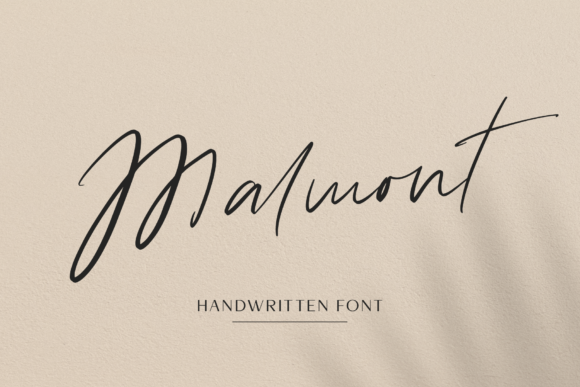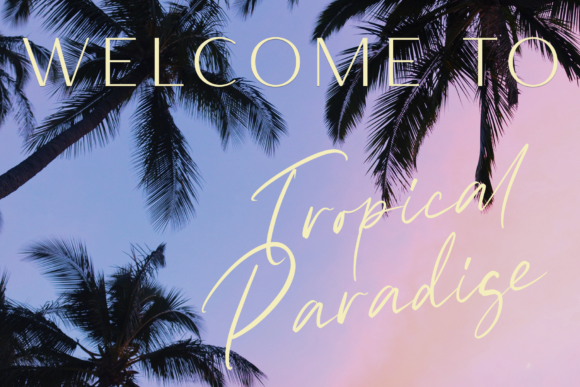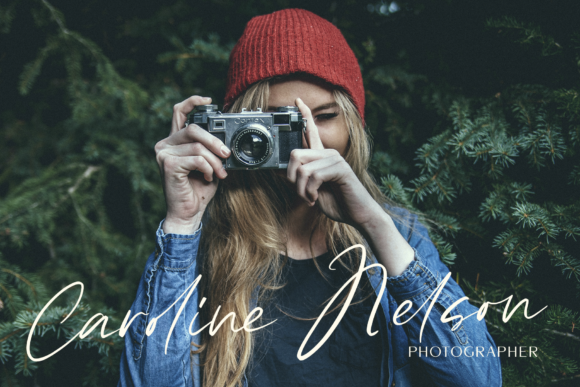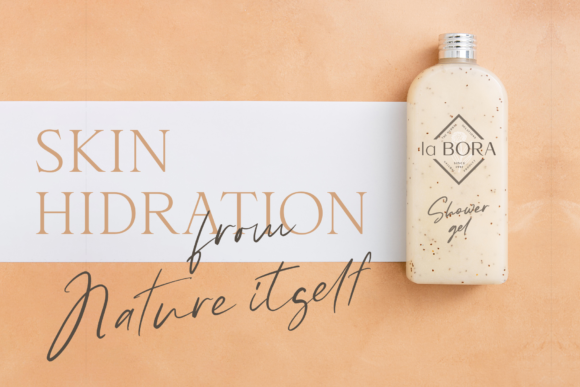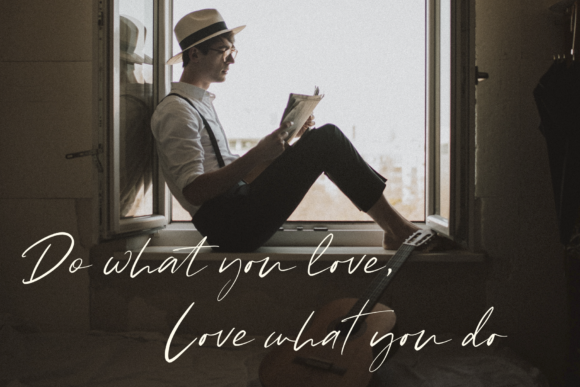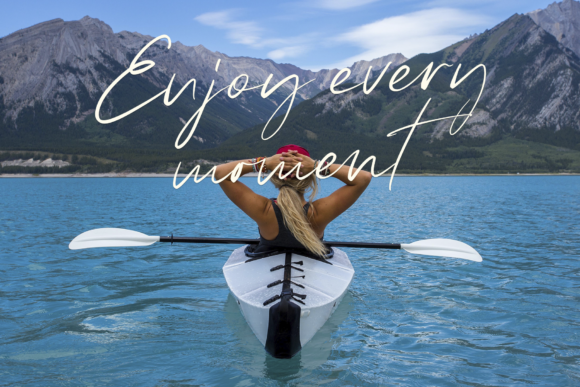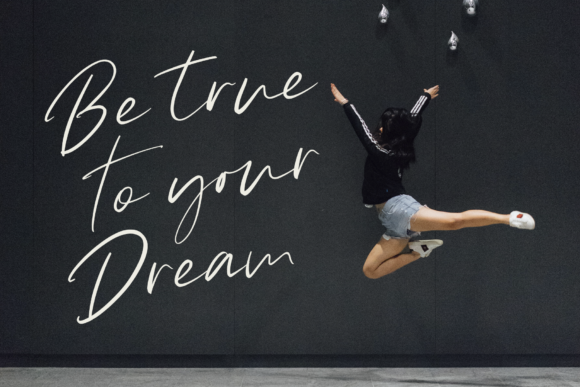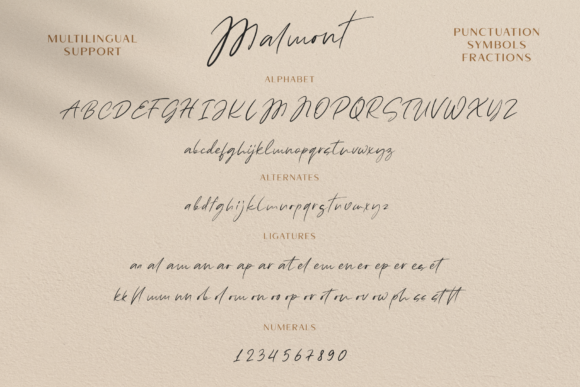
Malmont Font
About Malmont Font
Malmont is a timeless and flowing handwritten font. Its relaxed feel makes this font incredibly versatile, fitting a wide range of designs. This font is PUA encoded which means you can access all of the glyphs and swashes with ease! It features a varying baseline, smooth lines, gorgeous glyphs and stunning alternates.